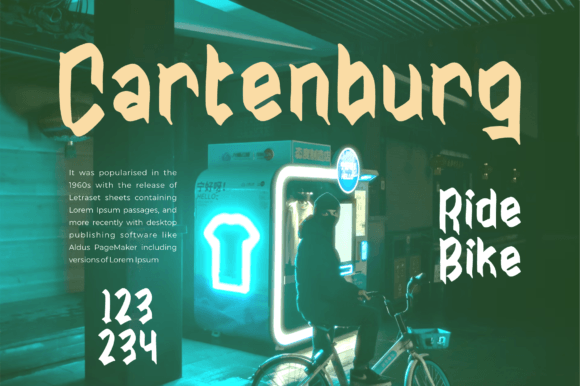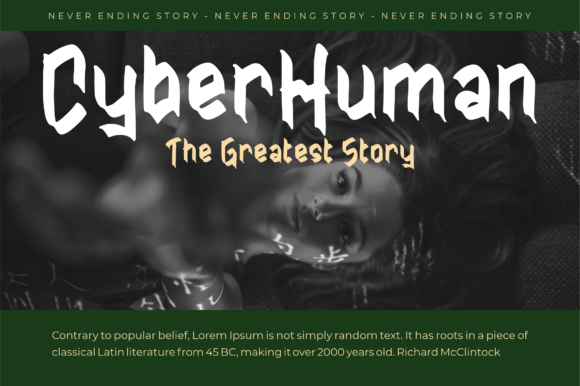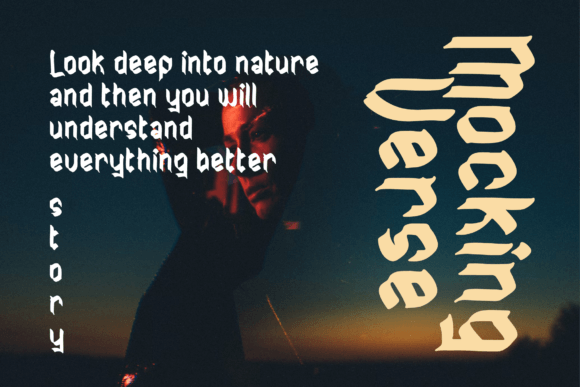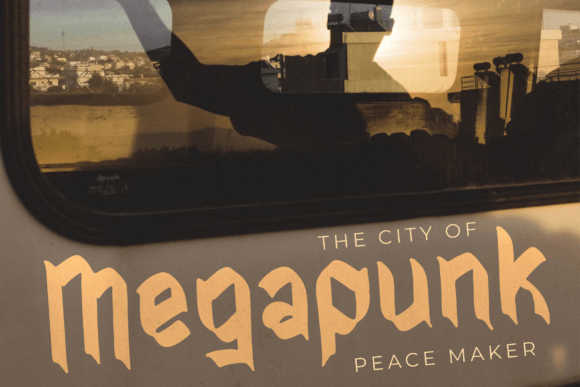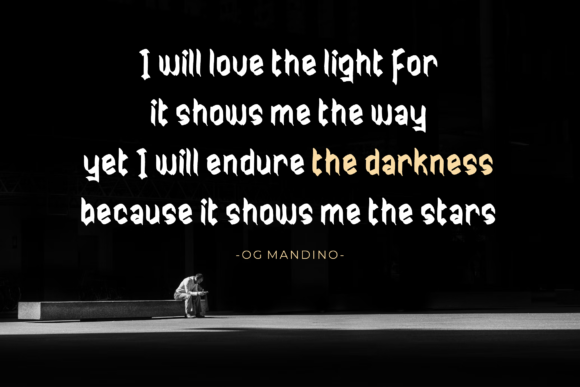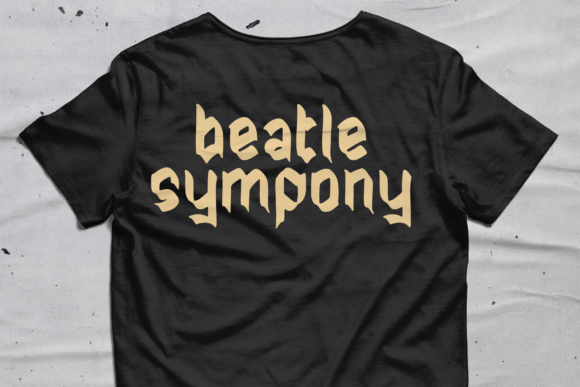
Introduction to Jailbolt Font
Jailbolt is a thick and edgy blackletter font, suitable for any project such as logos, branding, homeware designs, product packaging, mugs, quotes, posters, shopping bags, t-shirts, book covers, name cards, invitation cards and much more.
Key Features of Jailbolt Font
Why Choose Jailbolt Font?
Jailbolt Font offers exceptional quality and versatility, making it a valuable addition to your design toolkit. Whether you’re creating for personal projects or commercial use, Jailbolt Font delivers professional results.